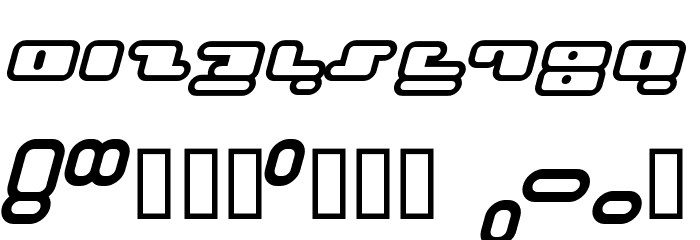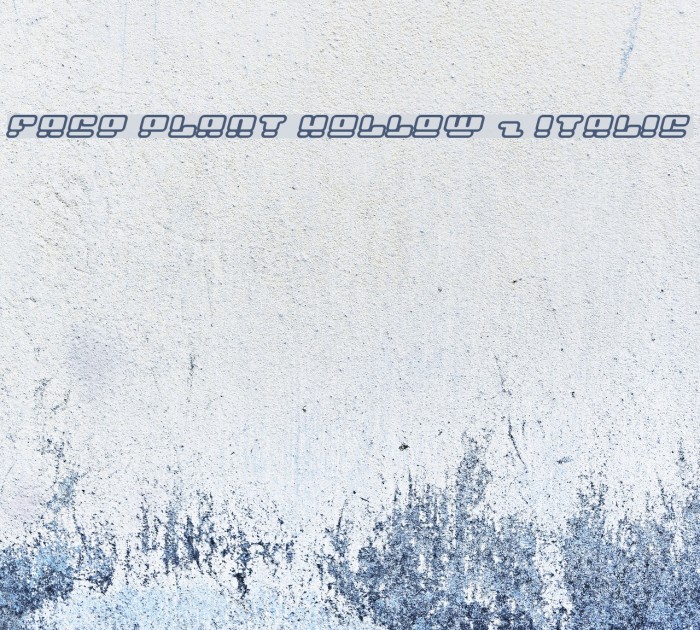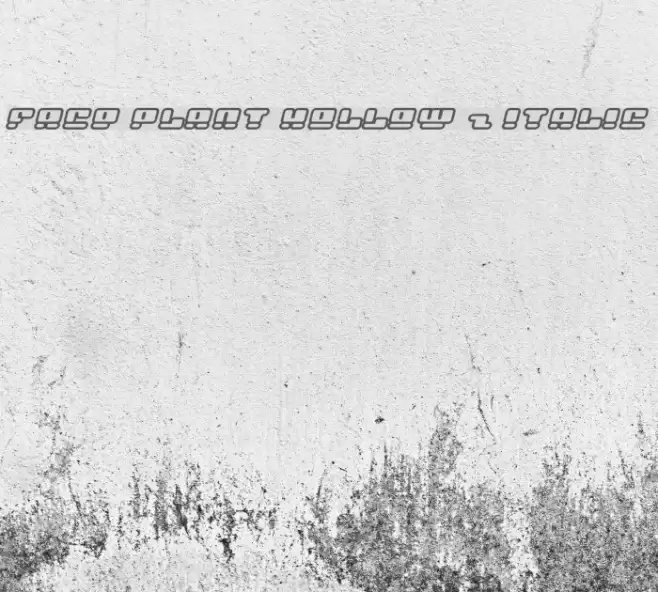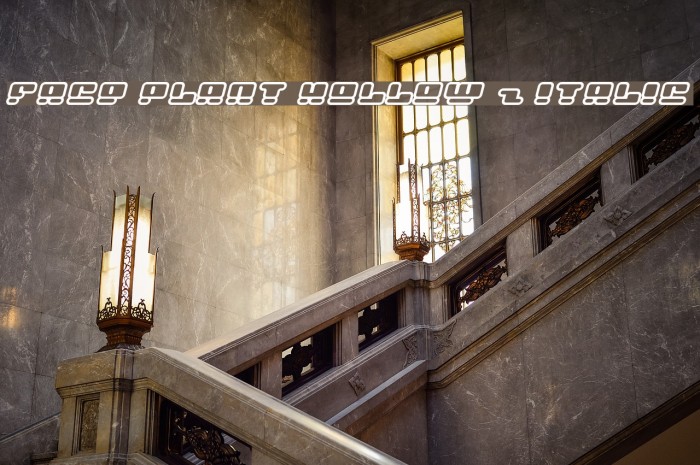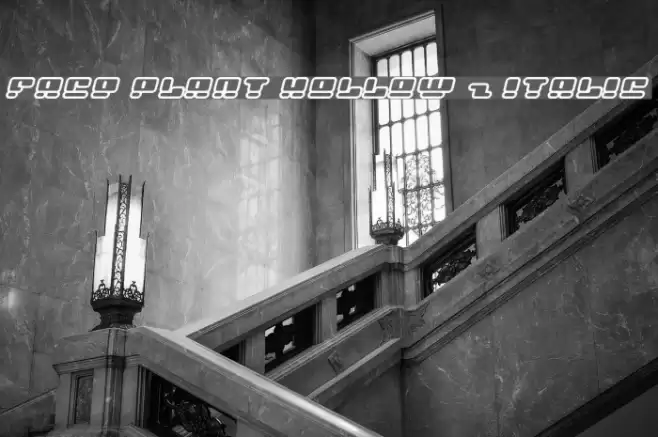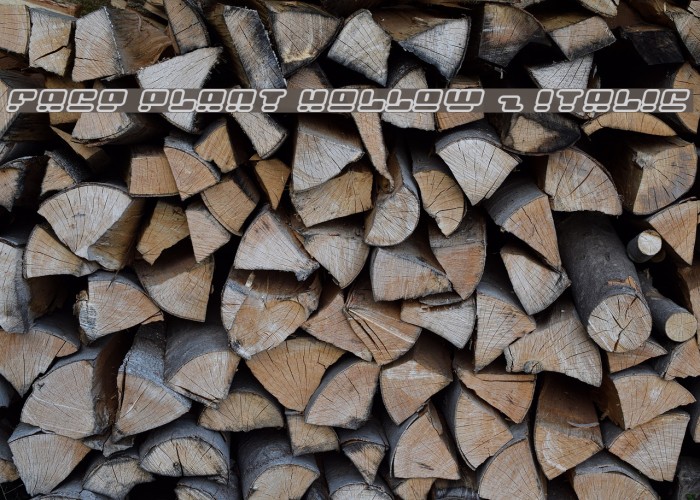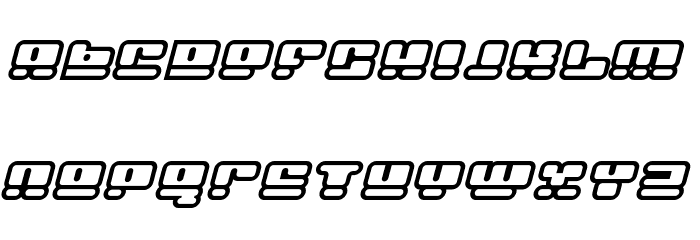
Face plant hollow 2 Italic Font
Face plant hollow 2 Italic Description
This font features a bold, hollow design with a futuristic and playful aesthetic. The characters are outlined with a consistent thickness, giving them a bubble-like appearance. The rounded edges and uniform stroke width contribute to a friendly and approachable style. The italic slant adds a dynamic and energetic feel, making it suitable for creative and modern applications. The spacing between characters is relatively tight, enhancing the compact and cohesive look of the text.
| Proposed Projects | Ideal for use in children's books, video game titles, posters, and branding for tech or creative industries. |